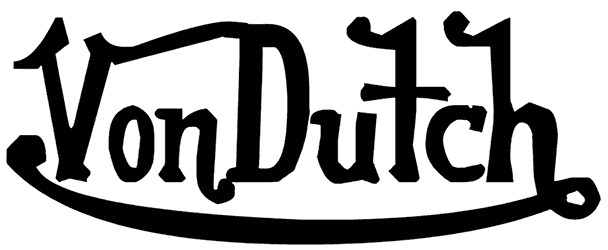
VonFont
If you are in process of hunting for a classic font that looks like ancient writing, do not miss a moment to download VonFont. The curved and continued lines that inspire this font, give it a lovely and dynamic look.
VonFont has a feminine and delicate feel and can be a good choice for designing postcards, tattoos, wedding cards, and writing historical books. This font does not include numbers but can create a mystical and archaic feeling in any design.
My Version of the Classic VonDutch Logo using the existing letters and completing the alphabet plus the typical underlines ind different lengths – this font is truly new and unique, I have’nt seen anything like it lately!!!